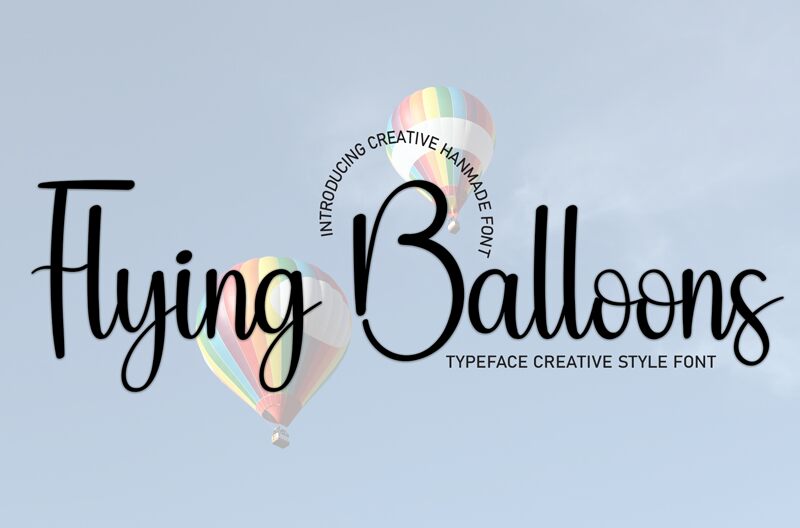
Flying Balloons
Flying Balloons font, designed by Andi Moz, is a sweet and playful handwritten display font. Its charm lies in its light and breezy strokes that evoke a sense of whimsy and warmth. This cute font is perfect for adding a fun touch to wedding invitations, greeting cards, or any creative project needing a friendly vibe.
Easy to read and bursting with character, the Flying Balloons font stands out in any design context. Whether you're crafting personal notes or professional invitations, this free font ensures your message floats above the rest. Looking to download the perfect font for your next playful project? Flying Balloons is sure to leave an impression!